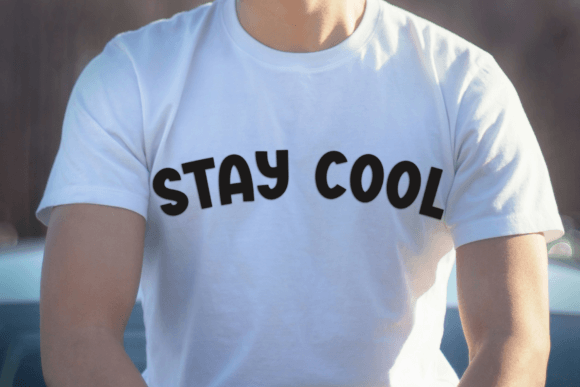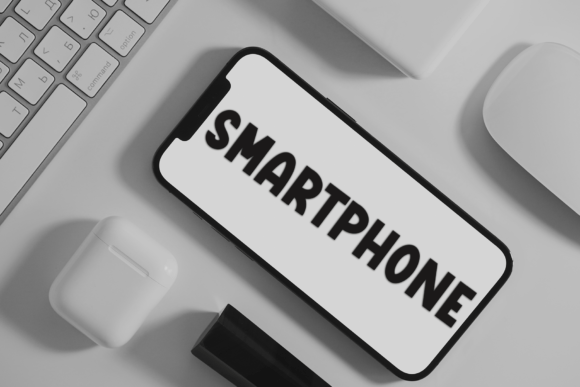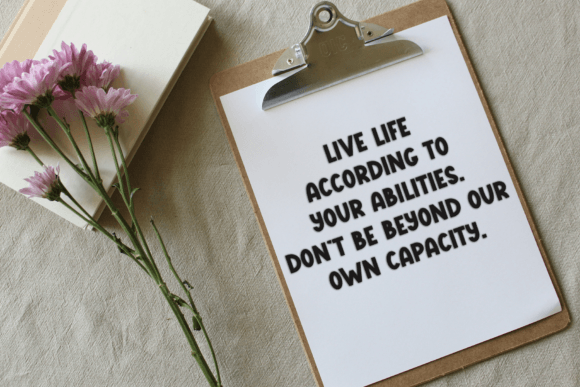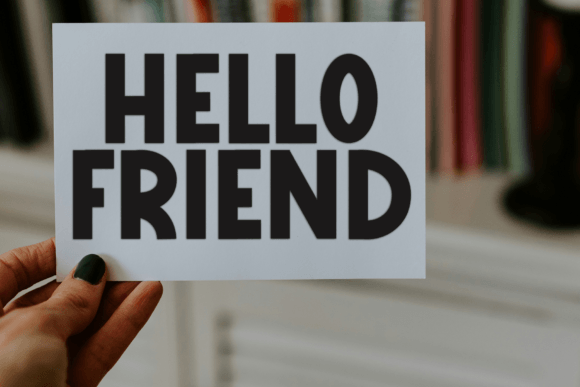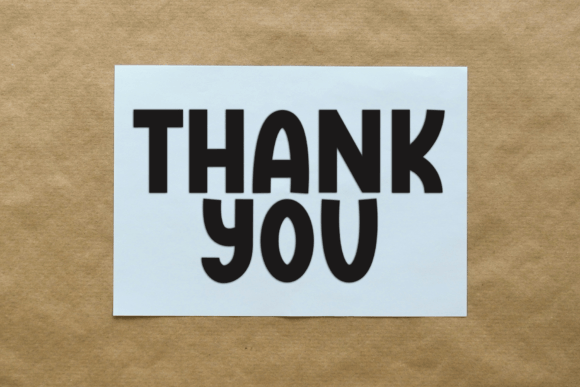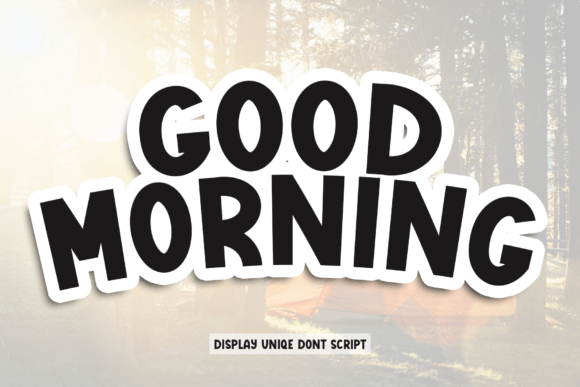
Introducing Good Morning Font: A Festive and Happy Typeface for Holiday Designs
The holiday season is upon us, and with it comes the need for designs that capture the spirit of joy, cheer, and festivity. If you’re a designer or crafter looking for a font that embodies the essence of the holidays, look no further than Good Morning Font. This delightful typeface is specifically designed to add a touch of charm to your holiday-themed projects, making it perfect for greeting cards, gift labels, and festive decorations.
What Makes Good Morning Font Special?
Good Morning Font is a decorative typeface that boasts a unique flair, setting it apart from other fonts. Its intricate details and whimsical design elements evoke a sense of nostalgia and playfulness, making it an ideal choice for holiday designs. With Good Morning Font, you can add a dash of festive fun to your projects, making them stand out from the crowd.
Key Features of Good Morning Font
- Festive and Happy Design: Good Morning Font is crafted to capture the spirit of the holiday season, exuding a sense of joy and cheer.
- Decorative Elements: The font features intricate details and unique design elements that add a touch of charm to your designs.
- Perfect for Holiday Projects: Good Morning Font is ideal for greeting cards, gift labels, holiday-themed decorations, and other festive projects.
- Nostalgic Atmosphere: The font’s whimsical design evokes a sense of nostalgia, making it perfect for creating vintage-inspired holiday designs.
How to Use Good Morning Font in Your Designs
Good Morning Font is versatile and easy to use, making it a great addition to your design toolkit. Here are some ideas for incorporating Good Morning Font into your holiday designs:
- Greeting Cards: Use Good Morning Font to create festive and personalized greeting cards for friends and family.
- Gift Labels: Add a touch of charm to your gifts with custom labels featuring Good Morning Font.
- Holiday Decorations: Use Good Morning Font to create festive decorations, such as garlands, banners, and signs.
- Social Media Graphics: Add a dash of holiday cheer to your social media graphics with Good Morning Font.
Tips for Getting the Most Out of Good Morning Font
To make the most of Good Morning Font, here are some tips to keep in mind:
- Experiment with Colors: Good Morning Font looks great in a variety of colors, so don’t be afraid to experiment and find the perfect hue for your design.
- Mix and Match Fonts: Combine Good Morning Font with other fonts to create a unique and eye-catching design.
- Use Decorative Elements: Take advantage of Good Morning Font’s decorative elements, such as swashes and flourishes, to add a touch of elegance to your design.
Good Morning Font is a festive and happy typeface that’s perfect for capturing the spirit of the holiday season. With its decorative elements and unique flair, it adds a touch of charm to your designs. Whether you’re a designer or crafter, Good Morning Font is a great addition to your toolkit. So why wait? Download Good Morning Font today and start creating holiday designs that are sure to delight!